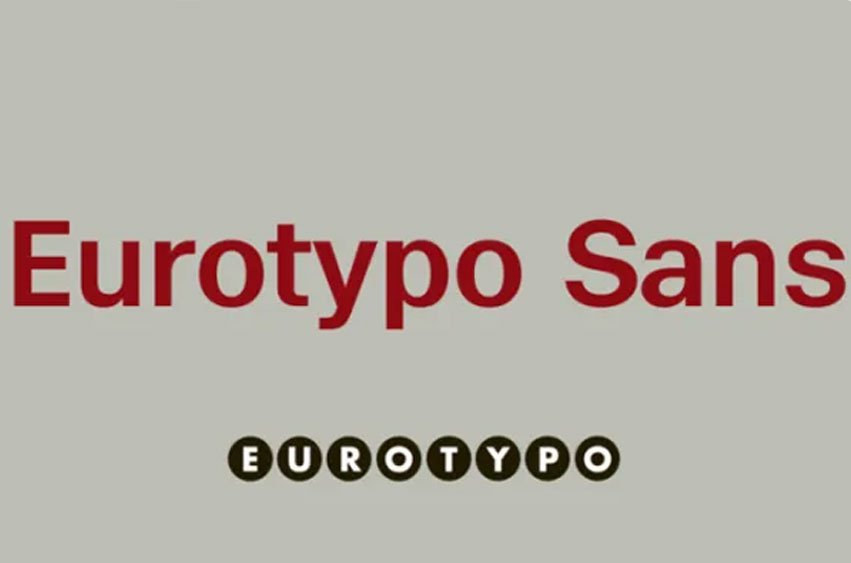
Eurotypo Font
Eurotypo Font is a classic modern Sans Serif typeface. This family contains six weights of fonts starting from Light to black, with a matching italic face for each weight.
Each font of the family contain 359 glyphs and advanced typographical support with OpenType features such as, ligatures, discretional ligatures and case- sensitive forms. It also contain diacritics for Central European languages.